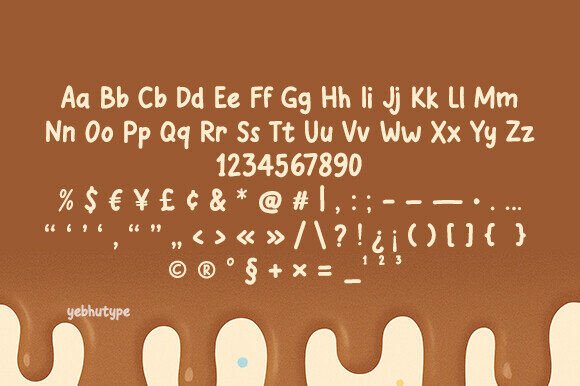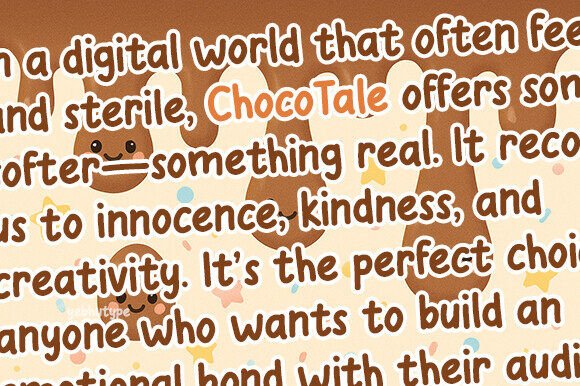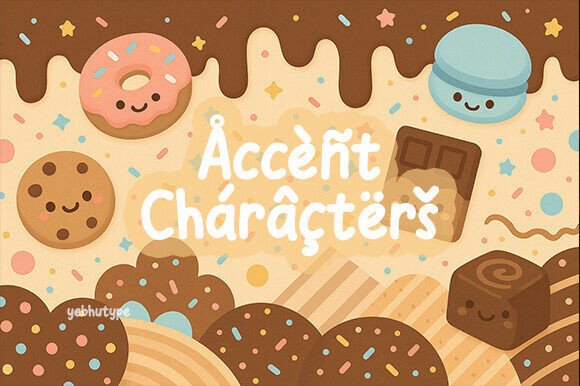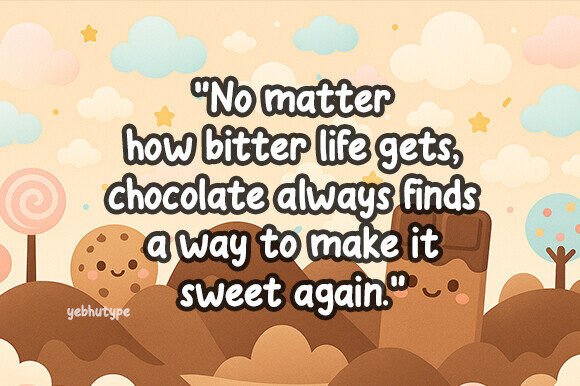
ChocoTale Font: A Deliciously Playful Typeface That Melts Hearts with Every Curve
Introducing ChocoTale Font, a whimsical and heartwarming typeface that wraps every letter in a blanket of charm and sweetness. Inspired by the cozy comforts of chocolatey treats and childhood fairytales, ChocoTale is more than just a font—it’s a story waiting to be told. With its soft, round letterforms and handcrafted essence, ChocoTale delivers a delightful blend of fun, friendliness, and flavor to all your design adventures.
The Essence of ChocoTale Font
ChocoTale was born from the magic of bedtime stories, cozy cafés, and the innocent giggles of a child’s imagination. It carries the warmth of a mug of hot cocoa, the sparkle of fairy dust, and the nostalgia of sweet moments shared with loved ones. This typeface embodies the whimsy and playfulness of childhood, bringing a sense of wonder and enchantment to every project it touches.
Design Features of ChocoTale Font
ChocoTale Font boasts a range of design features that make it perfect for a variety of creative projects. Some of its key characteristics include:
- Soft, round letterforms that evoke a sense of warmth and comfort
- Handcrafted essence that gives the font a personal, human touch
- Delightful blend of fun, friendliness, and flavor that adds a dash of joy to any project
- Perfect for designs that require a playful, whimsical feel, such as children’s books, branding, and packaging
ChocoTale Font is a versatile typeface that can be used in a wide range of design applications, from digital projects to print materials. Designers and crafters will love the font’s:
- Legibility: ChocoTale’s clear and simple letterforms make it easy to read, even at small sizes
- Flexibility: The font can be used for a variety of projects, from titles and headings to body text and captions
- Customizability: ChocoTale can be easily paired with other fonts and design elements to create unique and eye-catching designs
Adding a Touch of Whimsy to Your Designs
ChocoTale Font is the perfect way to add a touch of whimsy and playfulness to your designs. Whether you’re creating:
- Children’s books and educational materials
- Branding and packaging for food, beverage, or lifestyle products
- Invitations and stationery for special occasions
- Digital content, such as blog posts and social media graphics
ChocoTale Font is sure to bring a smile to your audience’s faces and leave a lasting impression.
Why Choose ChocoTale Font?
With so many fonts to choose from, why choose ChocoTale? Here are just a few reasons:
- Unique and distinctive: ChocoTale stands out from the crowd with its one-of-a-kind design
- Emotional connection: The font’s whimsical and heartwarming essence creates an instant emotional connection with your audience
- Versatility: ChocoTale can be used in a wide range of design applications, making it a valuable addition to your font library
Get Ready to Fall in Love with ChocoTale Font
If you’re looking for a font that will add a touch of magic to your designs, look no further than ChocoTale. With its irresistible charm and playful personality, ChocoTale Font is sure to melt hearts and capture imaginations. So why wait? Dive into the whimsical world of ChocoTale and discover a font that’s as sweet as it is versatile.